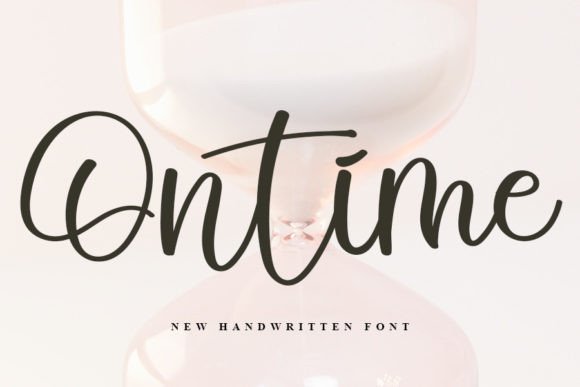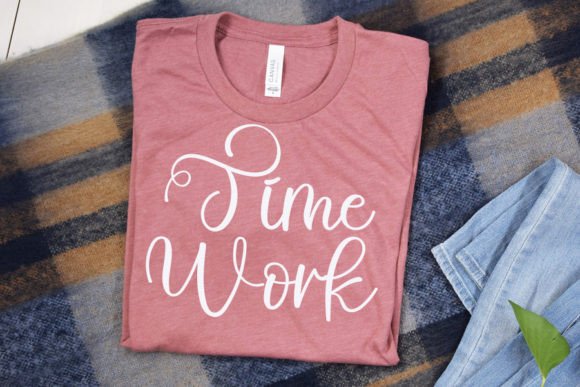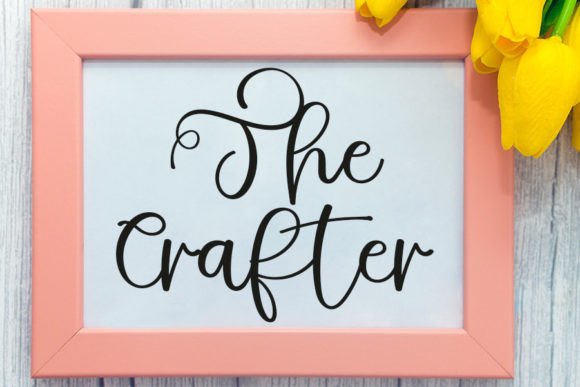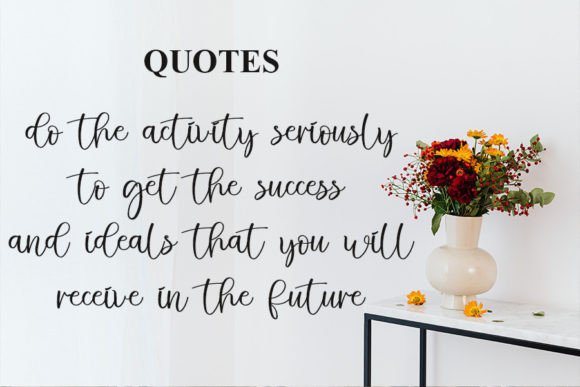
About Ontime Font
“Ontime is a beautiful and refined handwritten font that seamlessly combines class and modernity. Its sophisticated and elegant design makes it an excellent choice for logos, branding, invitations, stationery, wedding designs, social media posts, and various other creative applications. With PUA encoding, accessing the remarkable glyphs and ligatures of Ontime is a simple and convenient process!
The allure of Ontime lies in its classy and modern handwritten style. The font’s polished strokes and graceful curves contribute to a timeless aesthetic that suits a range of design needs. Whether you’re crafting a logo or designing wedding invitations, Ontime brings a touch of sophistication to your projects.
The PUA encoding of Ontime enhances its practicality by enabling easy access to a diverse set of glyphs and ligatures. This feature provides flexibility in customizing your text, allowing you to effortlessly incorporate unique characters and ligatures to enhance the visual richness of your designs.
Consider using Ontime to infuse a sense of refinement into your branding materials, invitations, or any project that calls for a blend of modernity and elegance. Its versatility makes it well-suited for both digital and print applications, giving you the freedom to create visually stunning and cohesive designs.
In summary, Ontime is more than just a font; it’s a design asset that brings beauty, class, and modern sophistication to your projects. With PUA encoding, unlocking its amazing glyphs and ligatures is a breeze, offering you the freedom to create custom and visually captivating designs with ease. Incorporate Ontime into your creative repertoire and let its timeless elegance elevate your typographic expressions.”